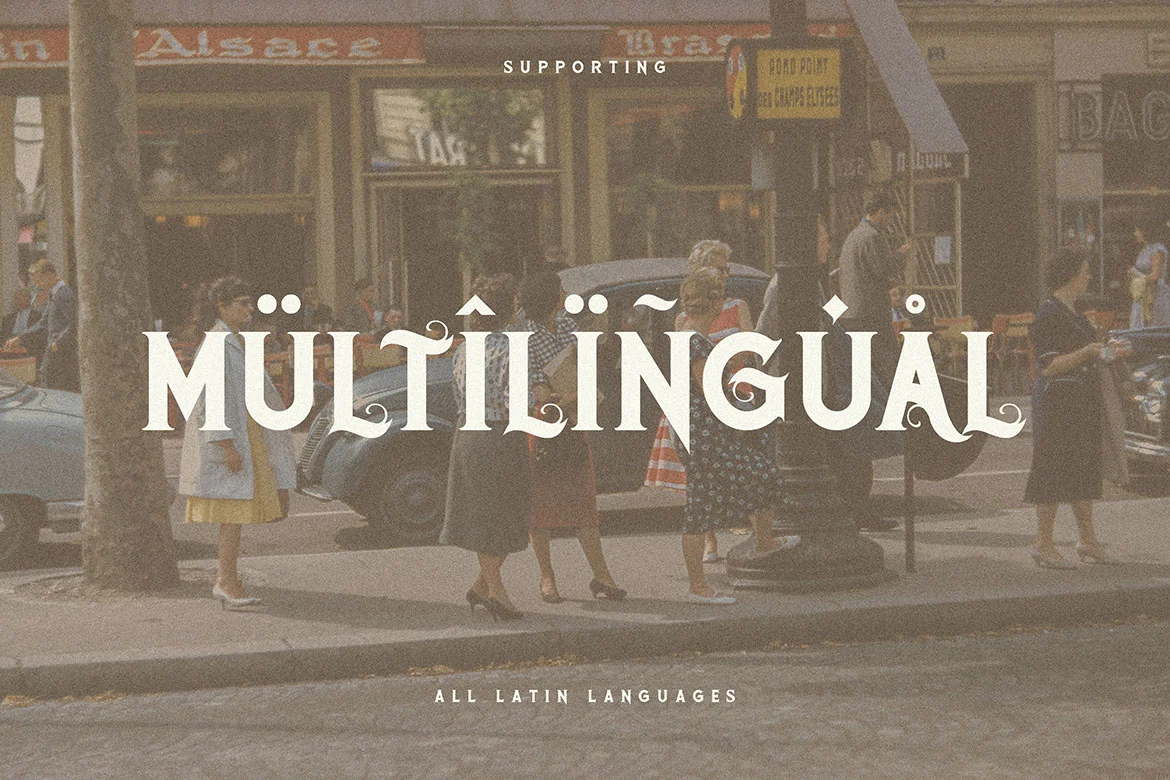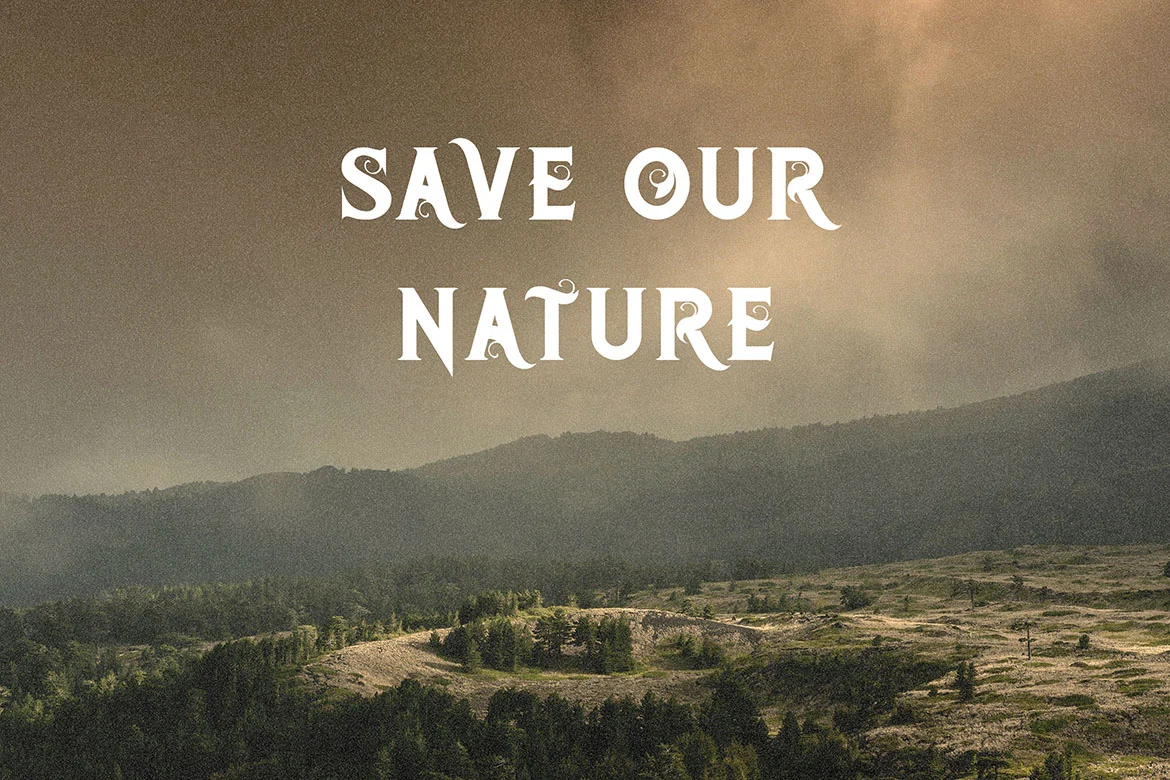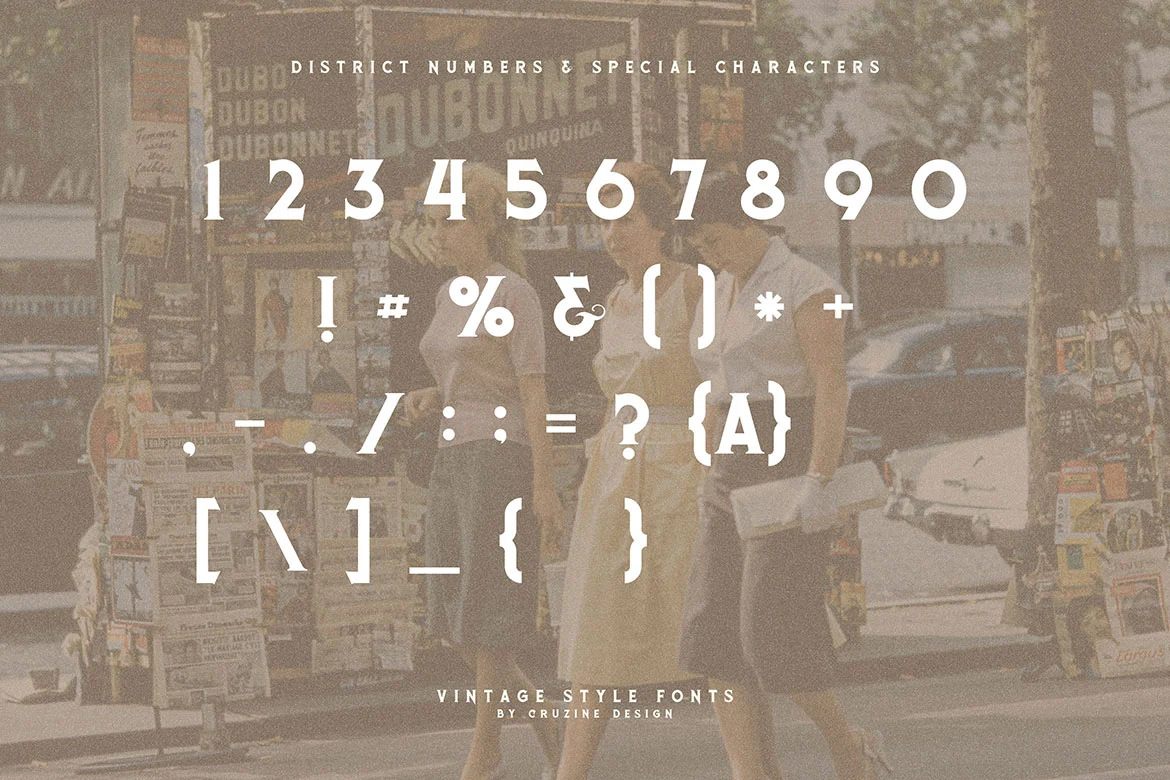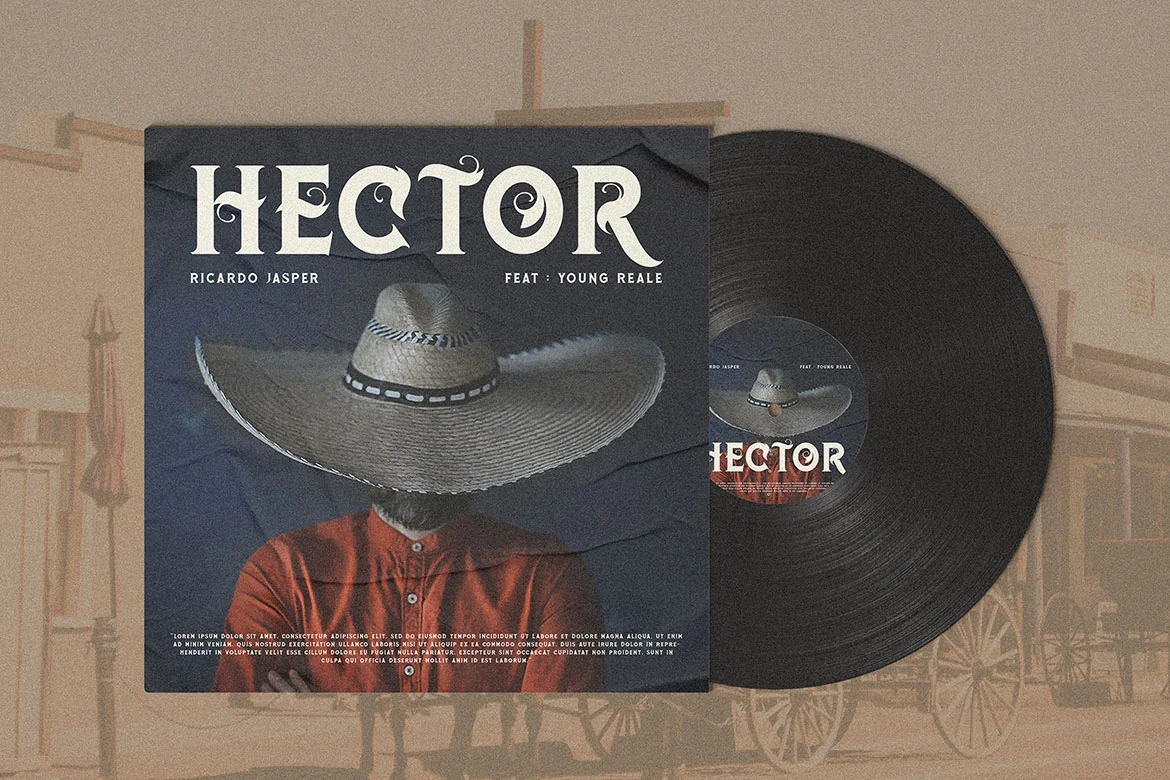
District Vintage Serif Font
Unique bold, vintage & decorative serif font. Comes with multilingual support & ligatures - great for your new logo or branding project.
- Great for retro or vintage style branding projects